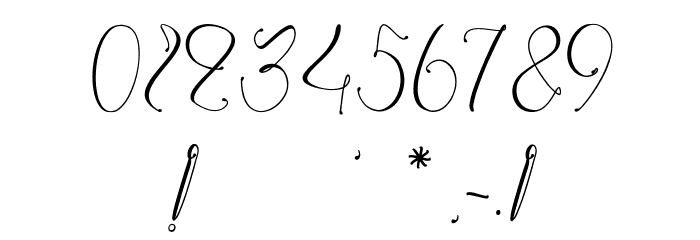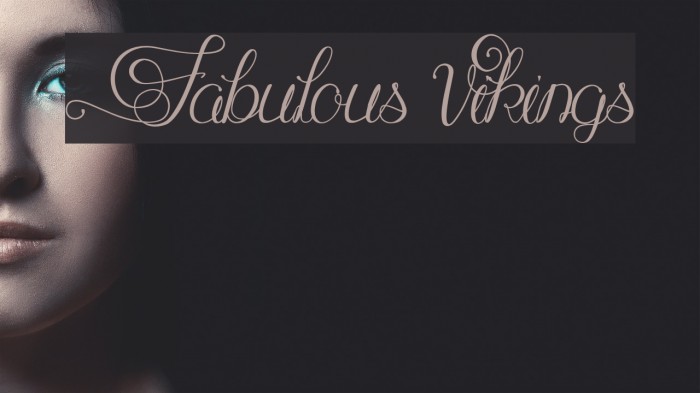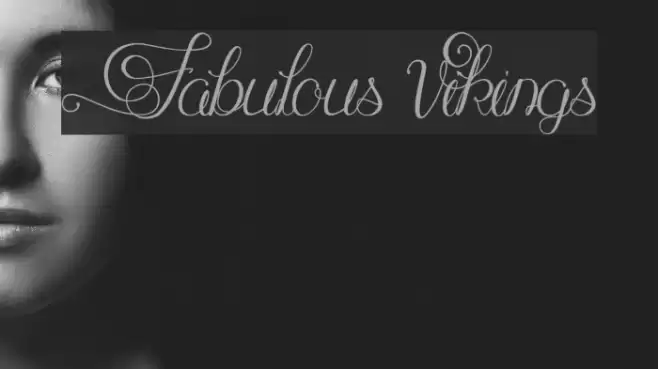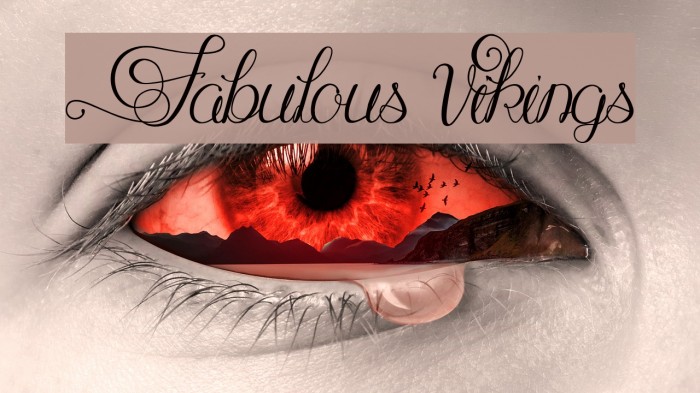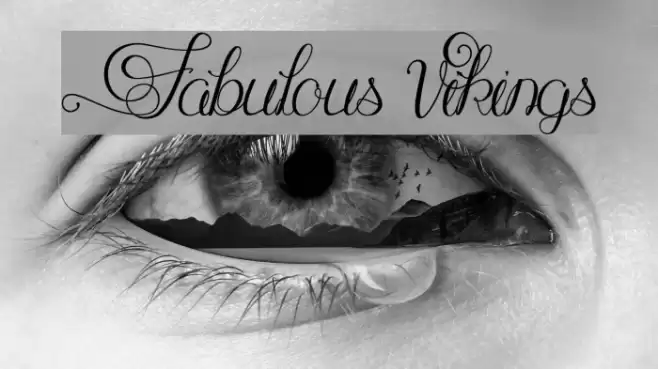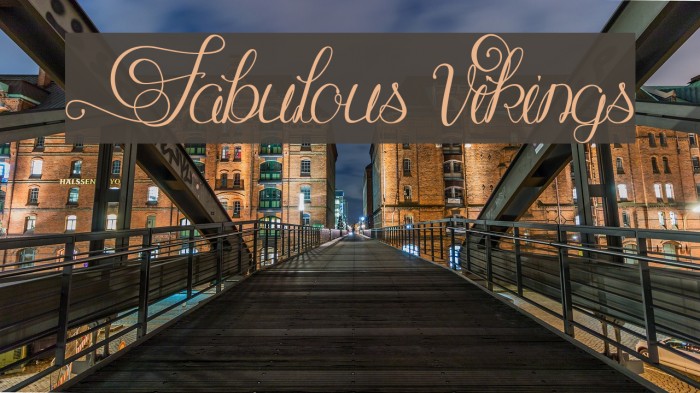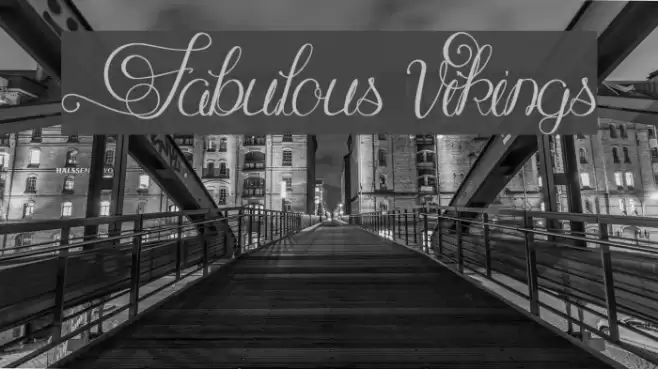
Fabulous Vikings Font
Fabulous Vikings Description
This font features an elaborate and decorative style, characterized by intricate swirls and flourishes that extend from each letter. The uppercase letters are particularly ornate, with loops and curls that give them a whimsical and elegant appearance. The lowercase letters maintain a similar style but are slightly more restrained, allowing for better readability. Numbers and special characters follow the same decorative theme, ensuring a cohesive look across all glyphs. The font's overall design is reminiscent of vintage calligraphy, making it suitable for projects that require a touch of sophistication and artistry.
| Overall Style | Vintage |
| Use Case | Logos, Headlines, Invitations |
| Proposed Projects | Ideal for wedding invitations, luxury branding, greeting cards, and artistic posters. |